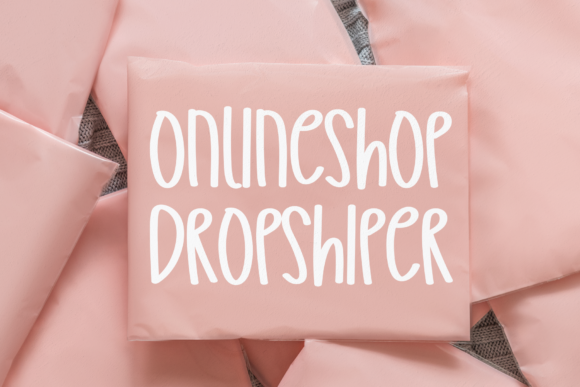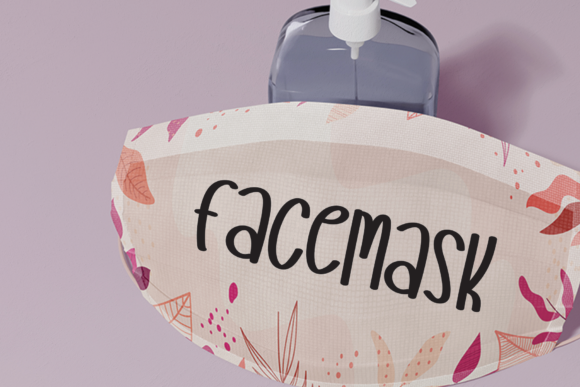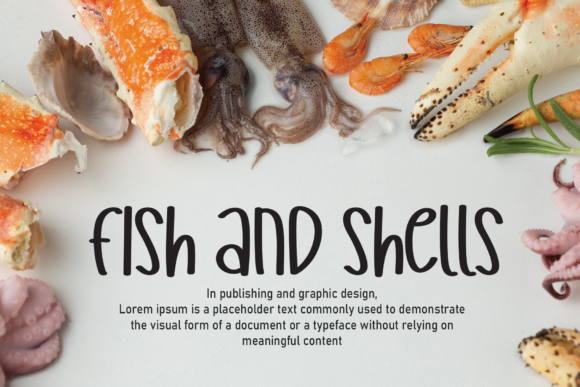
Music Stars Font
Music Stars is a playful and natural handwritten font, perfect for various designs and creative ideas! Use it for wall displays, wedding invitations, social media post logos, advertisements, product packaging, product designs, labels, photography, watermarks, invitations, stationery, and any project that requires an authentic feel.